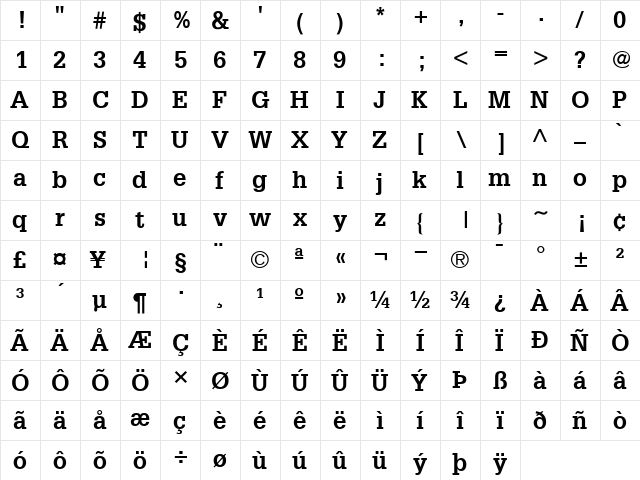
Glypha65 Bold
Design Context for Glypha65 Typeface
Glypha65 is a composed and adaptable typeface that performs quietly and consistently across a wide range of design contexts. Its bold stroke weight gives it real presence on the page.
Pro Tip: Pair Glypha65 with a font of contrasting weight or personality to build a more expressive typographic hierarchy.